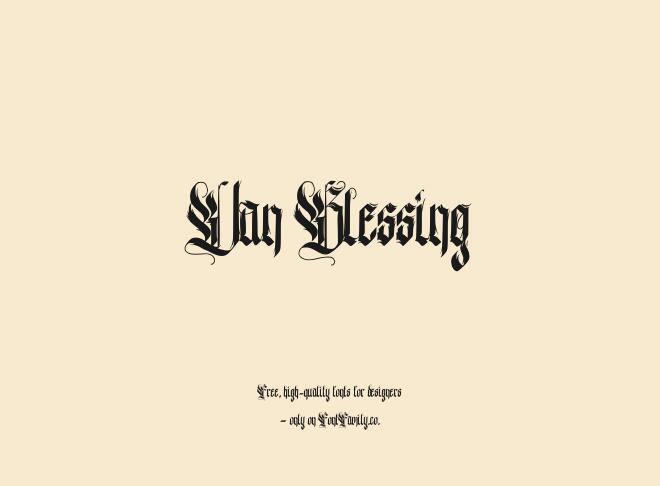
Van Blessing Font
Van Blessing Font is a handwritten, elegant script font brought to you by Van Design Studio. With its delicate, flowing curves and natural letter shapes, it exudes a sense of sophistication and charm. The font is perfect for a variety of design projects such as wedding invitations, logos, branding, social media graphics, and more. Its resemblance to calligraphy makes it a great choice for projects that require a personal, artistic touch. Van Blessing Font stands out from other script fonts with its unique character and style, making it a must-have for any designer's toolkit. It pairs well with both serif and sans serif fonts, allowing for versatile design options. Download the Van Blessing Font now and bring an elegant touch to your next design project.